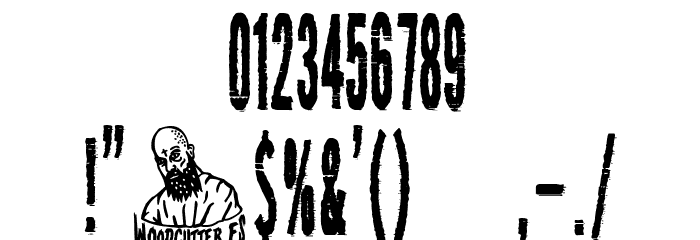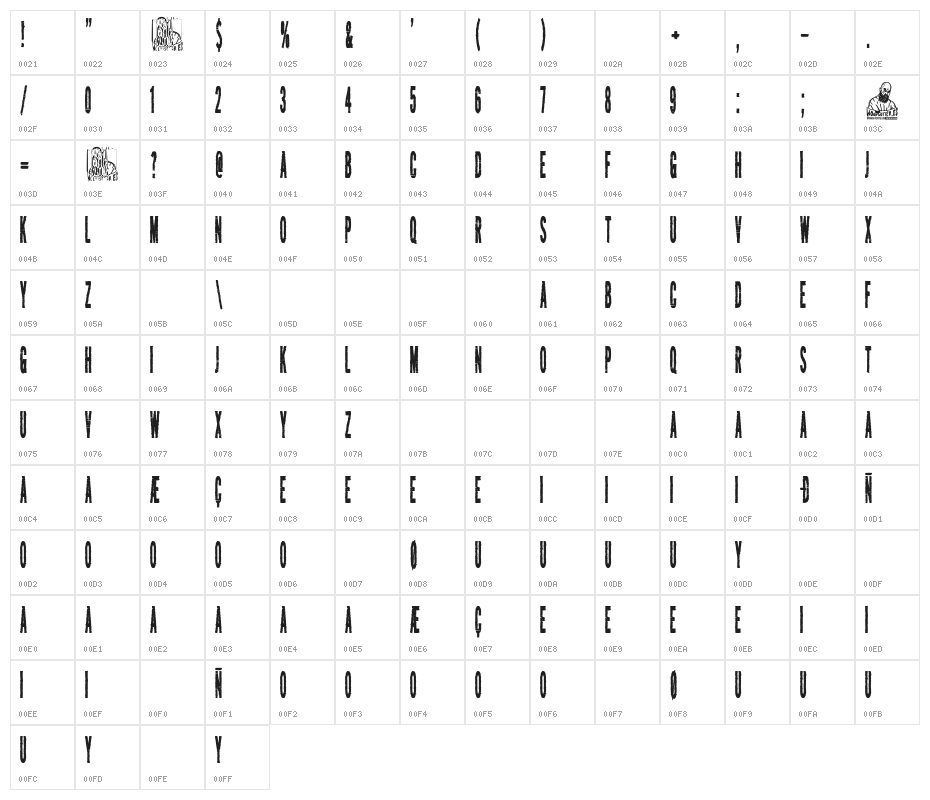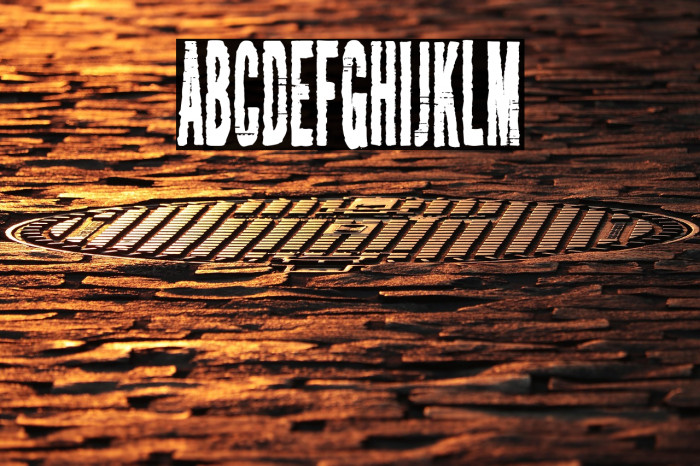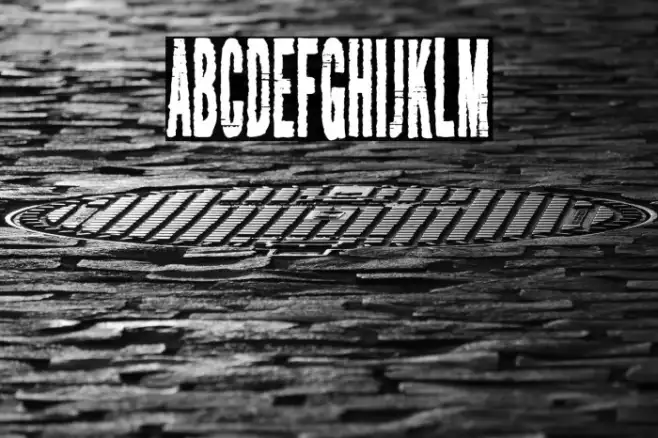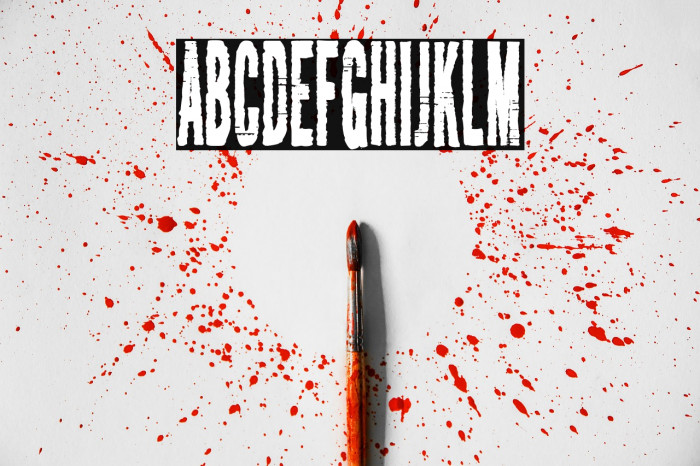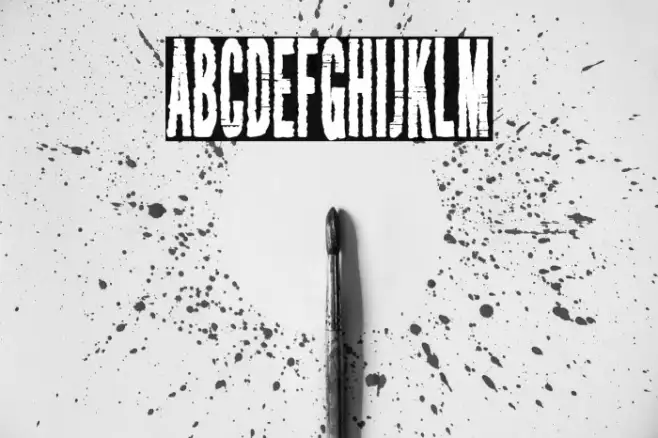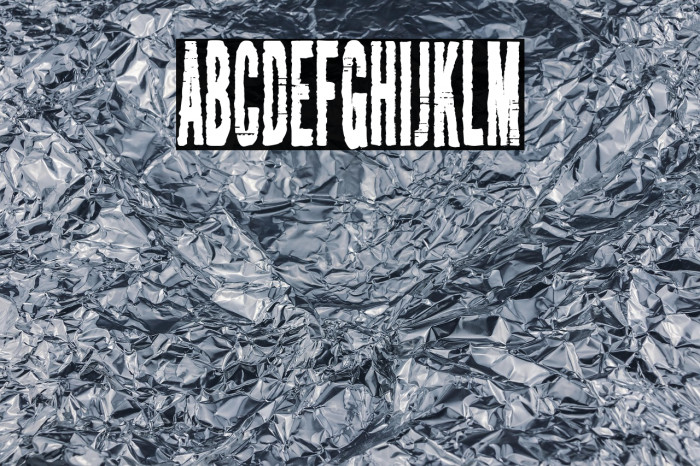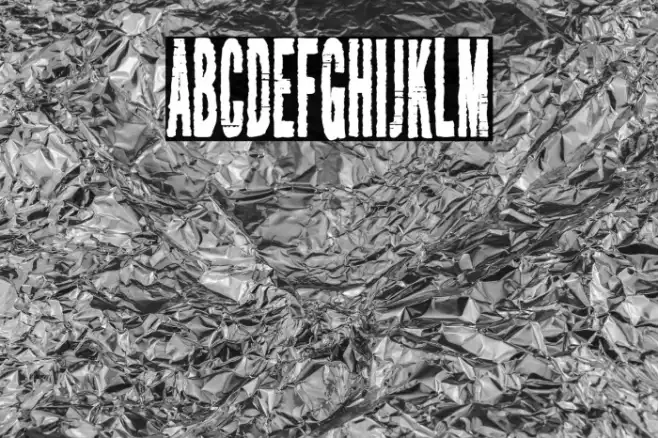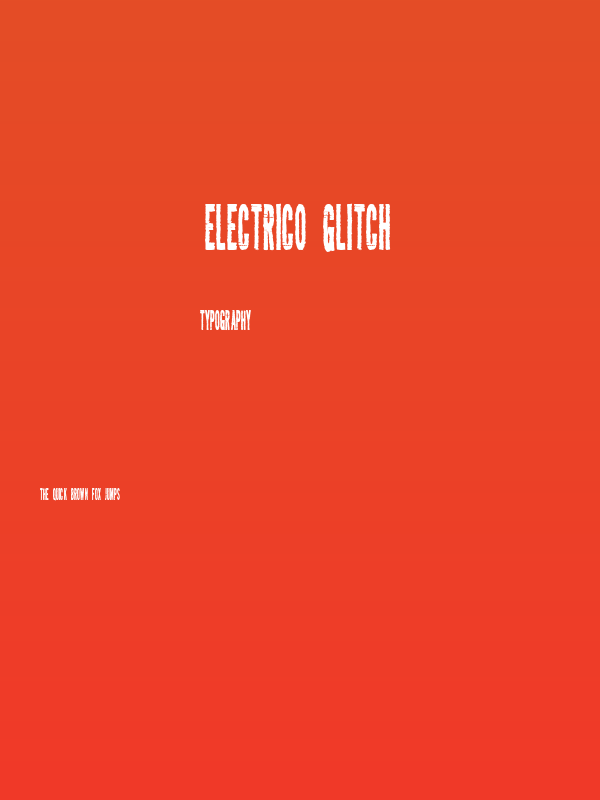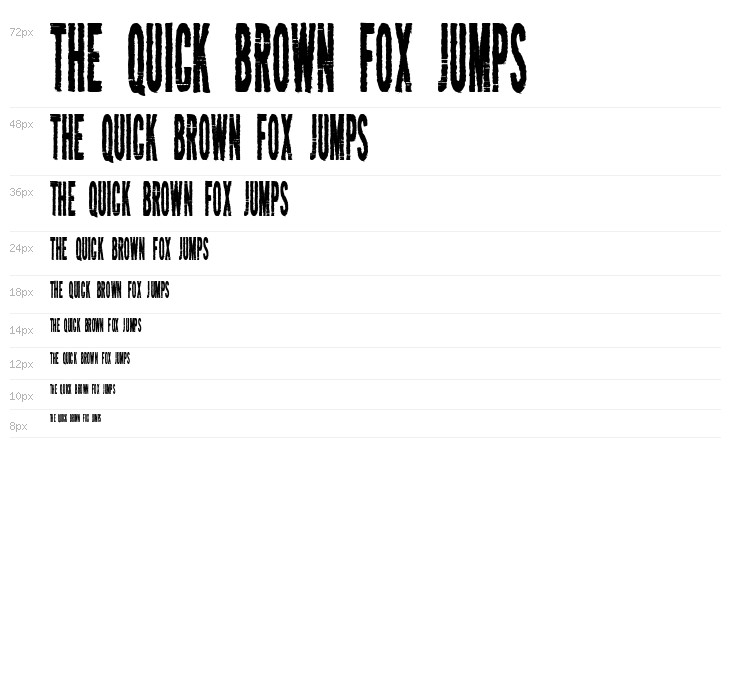
Electrico Glitch Font
Electrico Glitch Description
This font exhibits a bold and distressed style, characterized by its rough, textured appearance that mimics a glitch effect. The letters are tall and narrow, with uneven edges that give a sense of movement and energy. This font's unique style makes it stand out, with each character appearing as if it has been slightly distorted or eroded, adding to its dynamic and edgy look. The uppercase and lowercase letters maintain a consistent design, while the numbers and special characters follow the same distressed pattern, ensuring uniformity across all elements. The font's overall aesthetic is modern and unconventional, making it suitable for projects that require a bold statement.
| Overall Style | Modern, Edgy |
| Use Case | Headlines, Posters, Album Covers |
| Proposed Projects | Ideal for music album covers, edgy posters, urban-themed designs, and digital art projects. |